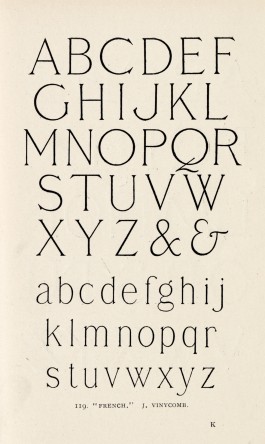
Mike Tully
French
Source material: J. Vinycomb's Modern Roman French (L.F.D., 1906)
“French” is based on a Modern Roman French alphabet drawn by John Vinycomb. It was published by Lewis Foreman Day in Alphabets Old & New – For the Use of Craftsmen in 1906 and possibly originated before the 20th century. John Vinycomb worked as an engraver, illuminator, and heraldic designer in Belfast and London during the 19th and 20th centuries.
I was drawn to the delicate nature of this type and its contemporary sharpness yet rounded, sturdy proportions. The most challenging aspect in choosing to draw this type was its limited specimen—the single page in L.F.D.’s Alphabets Old & New—which includes a somewhat inconsistently condensed set of lowercase letters and no punctuation, figures, or additional glyphs.
The first step in drawing was to widen the lowercase letters towards proportions more harmonious with the capitals. In drawing the capitals, it became clear that smoothening some of the severity of some of the original letters would lend itself to a more cohesive and contemporary appearance. Overall, I decided to adapt its hairline weight to a thicker, less contrasted weight more appropriate for setting body text in addition to headlines.
With guidance from Tobias, I began to infer drawing decisions from additional sources, including ATF’s Lining Cushing No. 2 (1912). This was particularly useful when improvising characters that weren’t previously drawn such as the figures, punctuation, and additional glyphs.
An early version of French in use for an announcement for Nico Wheadon's lecture at the Yale School of Art, Fall 2020.